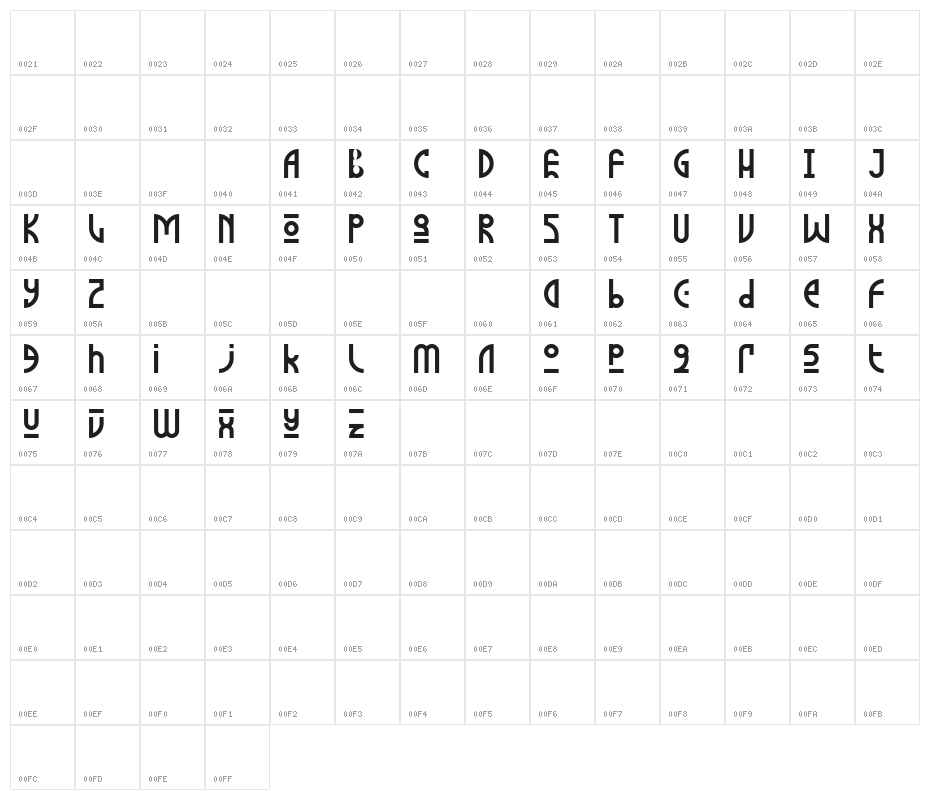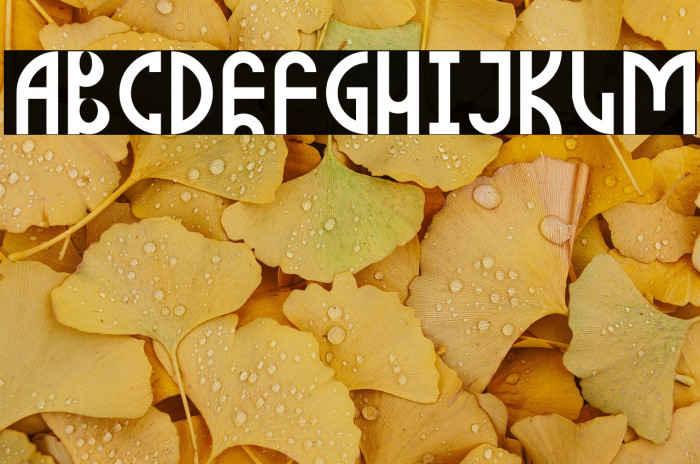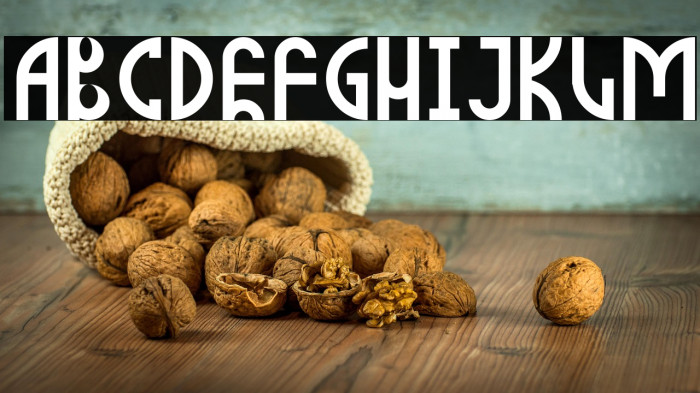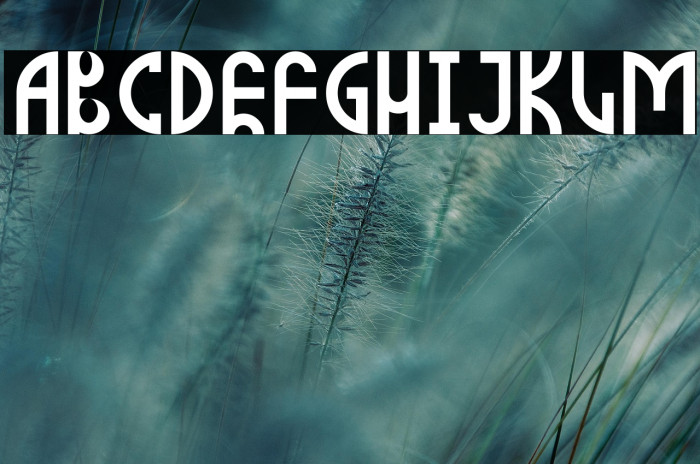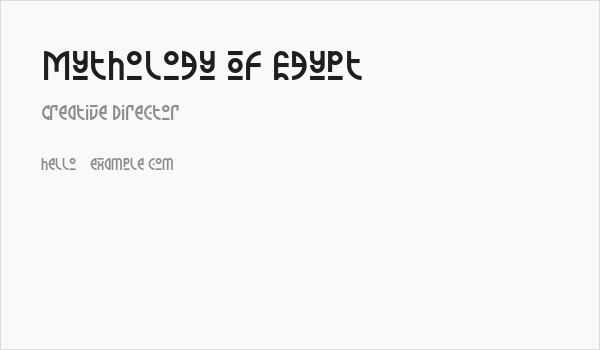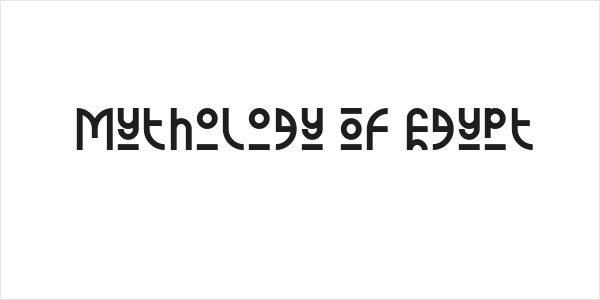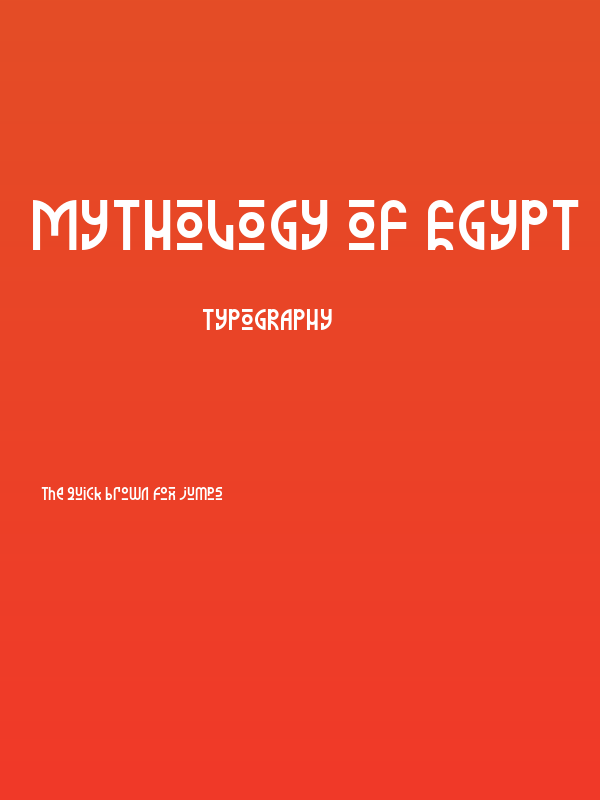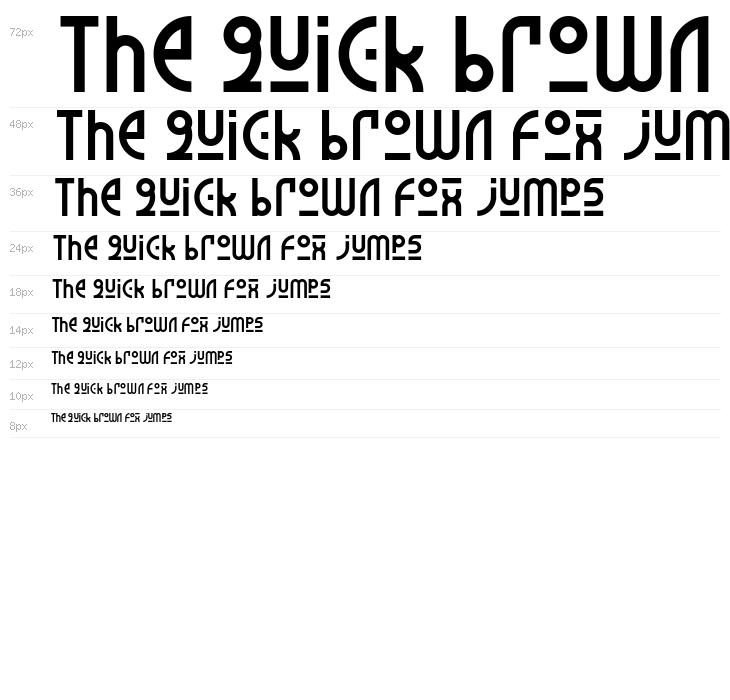
Mythology Of Egypt Font
Mythology Of Egypt Description
This font features a unique and bold design inspired by ancient Egyptian hieroglyphics, characterized by its geometric shapes and strong lines. Each character is crafted with a sense of symmetry and balance, incorporating circular and linear elements that evoke a sense of mystery and antiquity. The uppercase and lowercase letters maintain a consistent style, with distinctive curves and angles that create a cohesive look. The numerals and special characters are designed to complement the alphabet, ensuring a harmonious appearance across all text. This font is ideal for projects that require a touch of historical elegance and cultural depth.
| Proposed Projects | Ideal for historical-themed designs, cultural exhibitions, book covers, and branding that seeks an ancient or mystical aesthetic. |